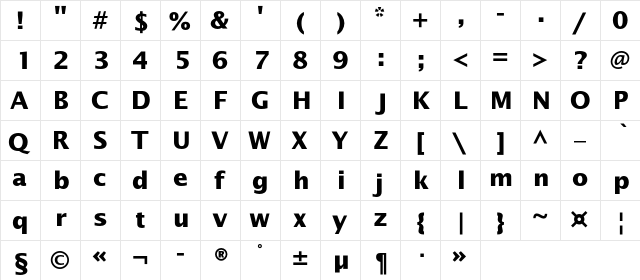
OfficeTypeSans Bold
Design Context for OfficeTypeSans Typeface
OfficeTypeSans offers clean, dependable letterforms without strong stylistic allegiance, making it a practical choice for designers who need flexibility. Its bold stroke weight gives it real presence on the page.